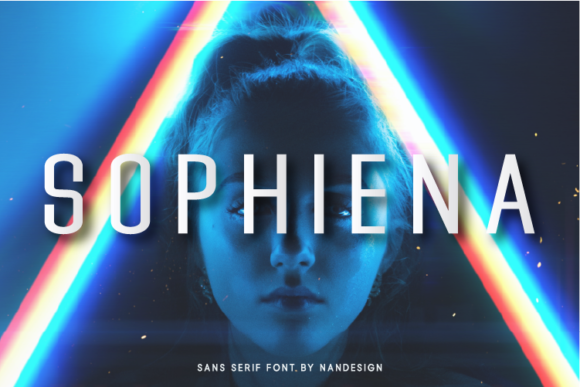
Sophiena Font
In a world where aesthetics reign supreme, introducing Sophiena Font, the epitome of elegance and sophistication. This sans serif masterpiece, crafted by the renowned Nan Design, is not just a font; it's an experience that will redefine your creative endeavors.
Sophiena's allure lies in its simplicity. Its clean lines and refined curves exude a timeless charm that transcends trends. Whether you're a seasoned designer or just starting, Sophiena will effortlessly elevate your projects to new heights.
Immerse yourself in the world of beauty and grace as you explore Sophiena's versatile character. Its wide range of weights and styles allows you to effortlessly adapt it to any design concept. From delicate branding elements to bold headlines, Sophiena seamlessly transforms your vision into reality.
With Sophiena as your creative ally, you'll discover a font that's as versatile as your imagination. Its understated elegance lends itself perfectly to a myriad of projects, from captivating logos and brochures to stunning website designs and social media graphics.
Step into the realm of sophistication and let Sophiena's allure captivate your audience. Its timeless style adds a touch of luxury to any project, making it the perfect choice for beauty salons, fashion houses, and lifestyle brands.
Indulge in the beauty of Sophiena, a font that speaks to the heart and soul. Its exquisite design will elevate your creations, leaving an unforgettable impression on all who encounter it.